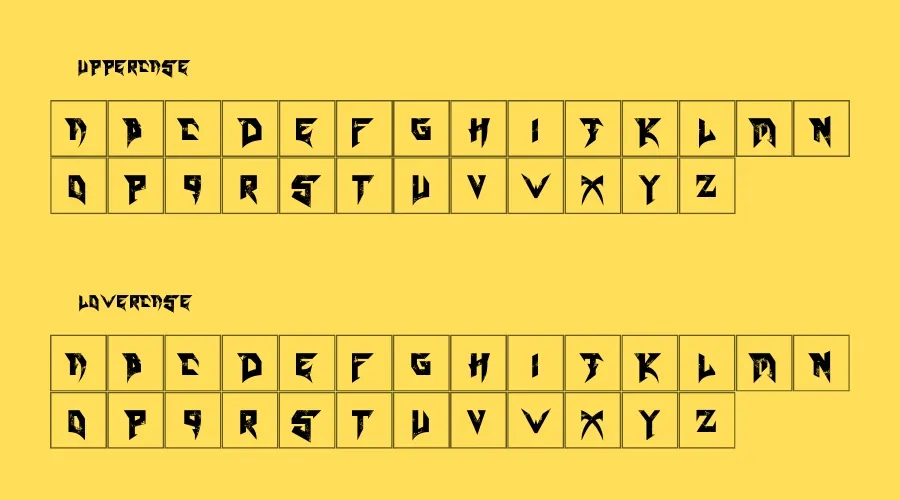
Blade Font
About Blade Font
LJ Design Studios created Blade Font it is a fancy style It has neat, clean, bold character shapes that make it perfect for enhancing the quality of your work.
Many types of stylish logo designs can be created using this unique font. By pairing this font with lexographer font, you can create imaginary and brilliant designs. In addition to creating an eye-catching design, it also gives your project an exciting look.
Many applications use this font, including Adobe Illustrator, etc. To assess the font, in this area there's a setting in which we select 31 uncommon characters, 26 letters of the letter set in upper and lower case.